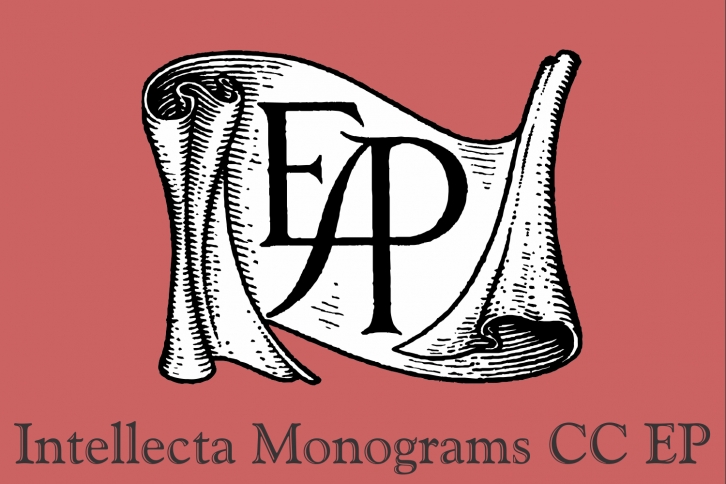
Intellecta Monograms CC EP is a great font that was designed by Intellecta Design. Imagine the amount of combinations you can create using this font! The archive is 16.88 MB and it was released on July 14, 2018. Intellecta Monograms CC EP looks beautiful on wedding invitations, greeting cards, logos, posters, labels, t-shirt designs, logos, business cards and is perfect for use in ink or watercolor works, fashion, magazines, packaging and food menus, children's books and more!